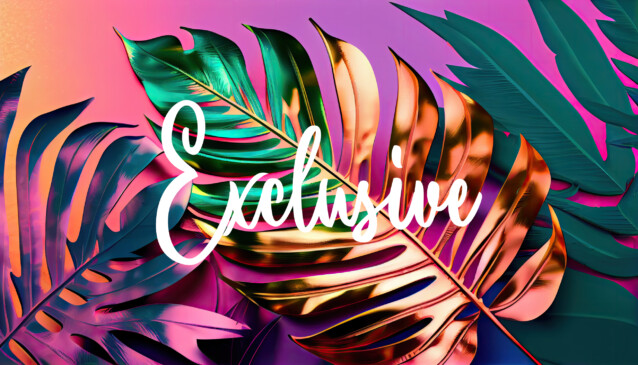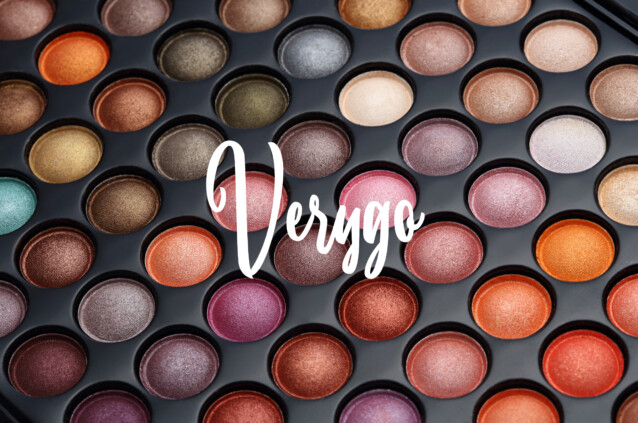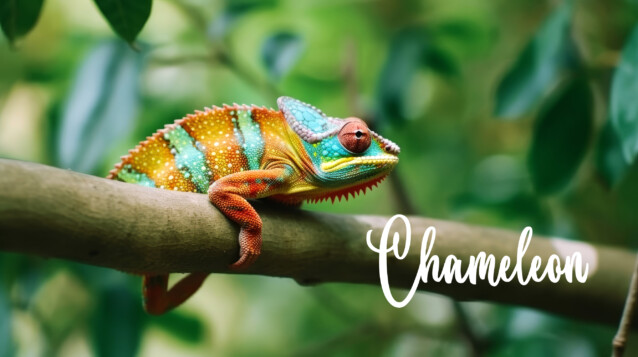
Now Pletty Font – Formerly known as Pletty book, And now the name is Now Pletty. It is an elegant script font designed for beauty or anything related to women